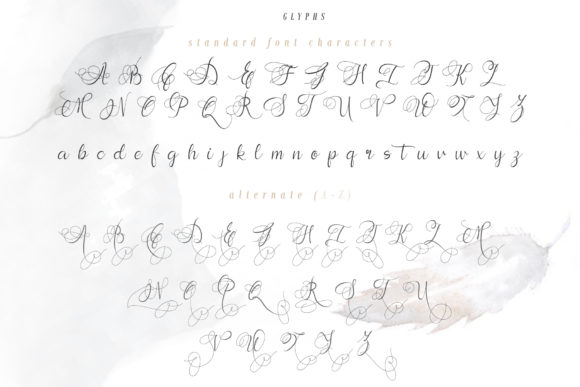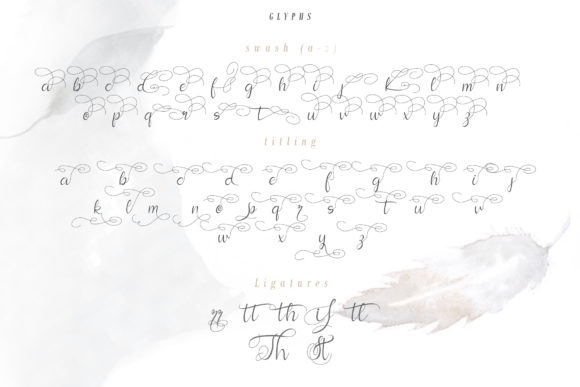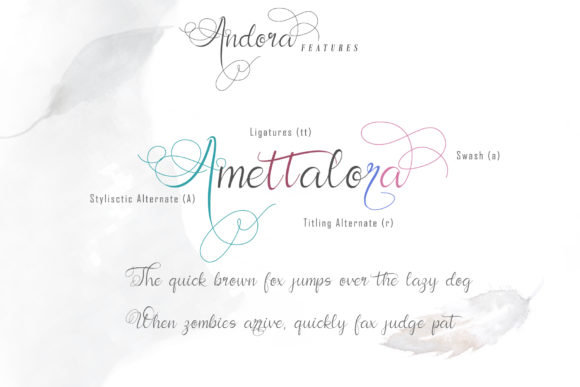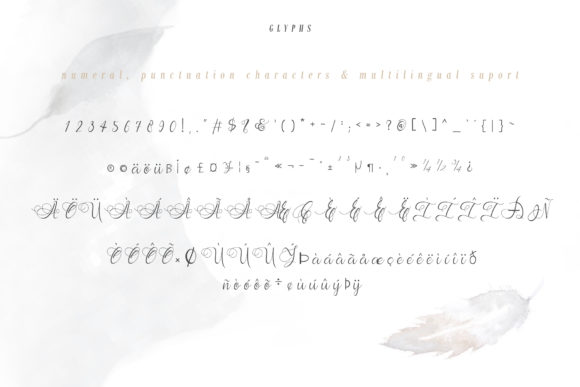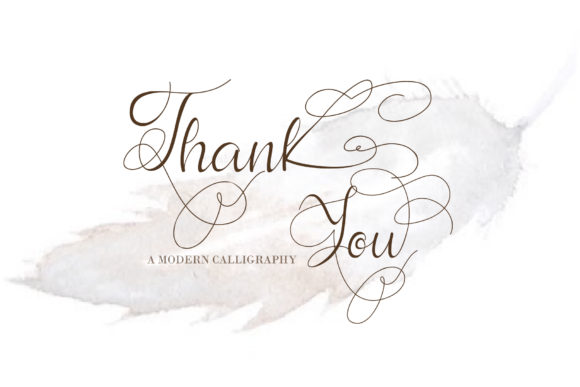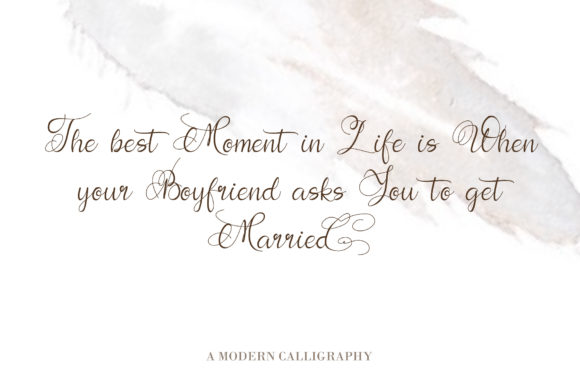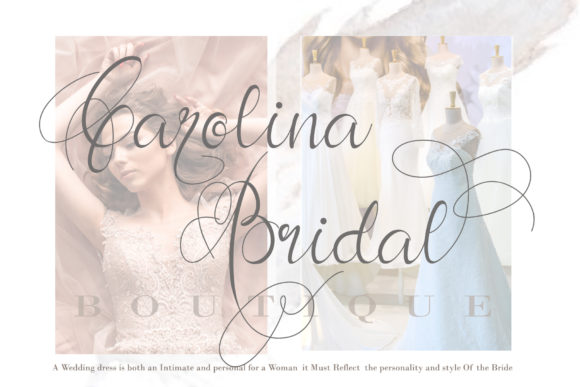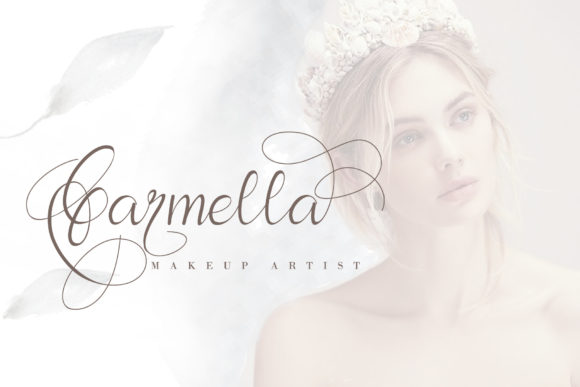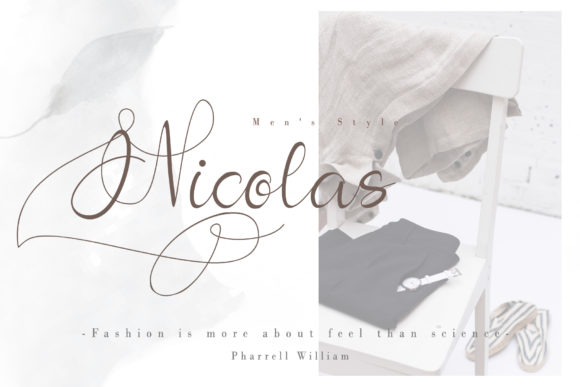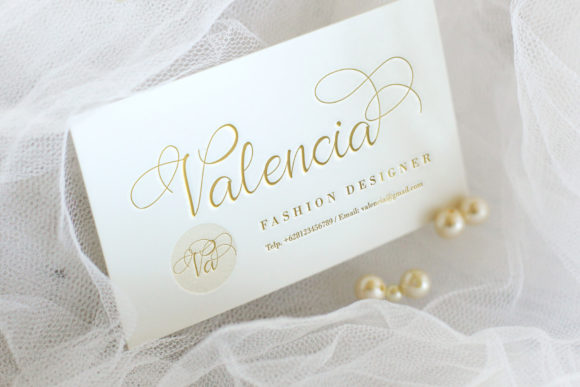
Andora Font
About Andora Font
Andora is a playful and strikingly beautiful handwritten font with a bold twist. It will add a sophisticated charm to any design project!